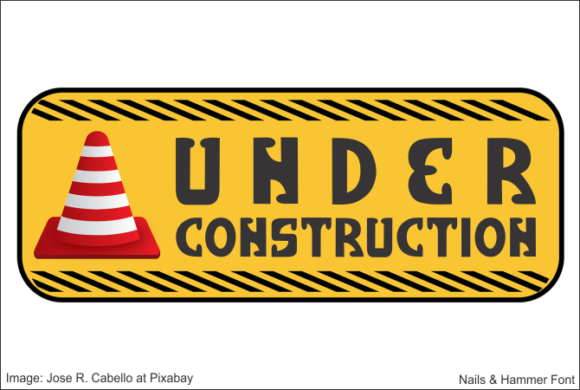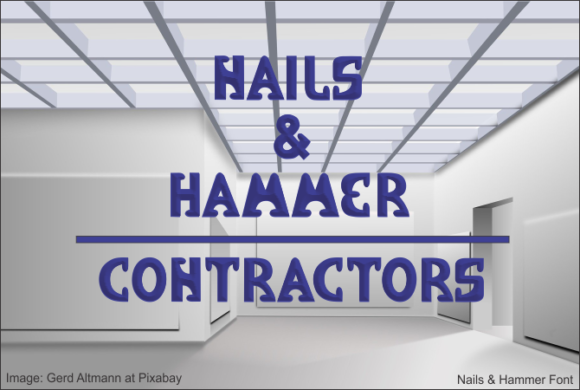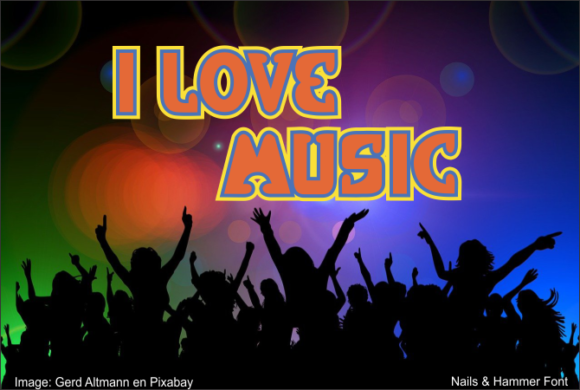
Introduction to Nails & Hammer Font
Nails & Hammer is a unique and interesting display font.
A little bit quirky, this font is a great choice for a wide variety of contexts .
Key Features of Nails & Hammer Font